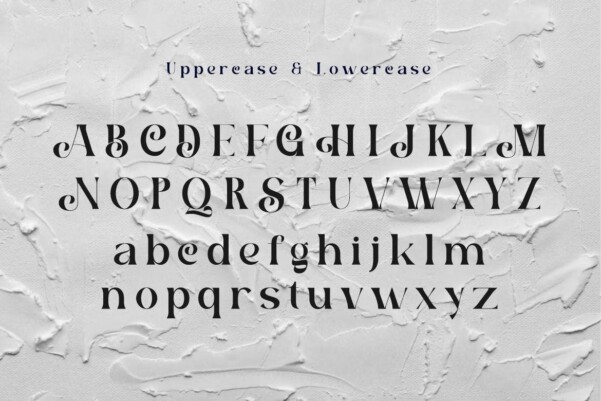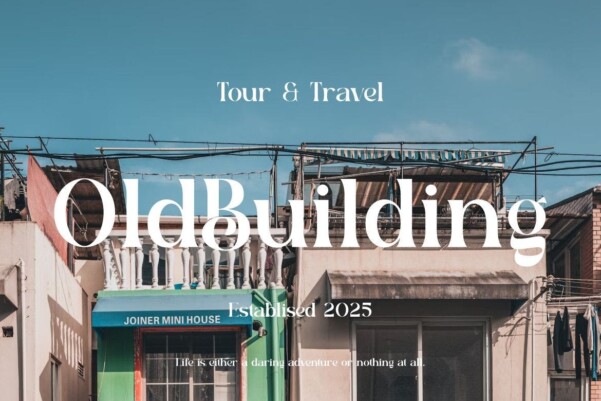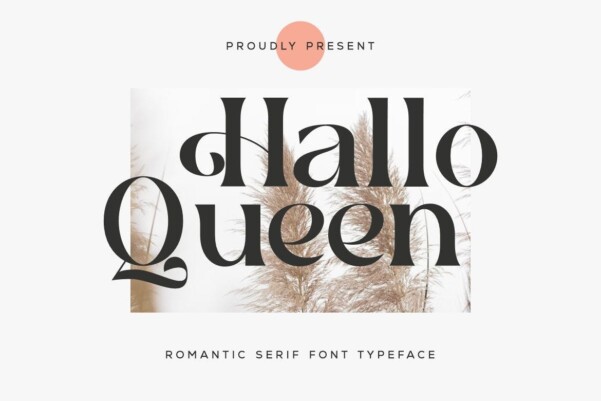
Hallo Queen Font
Hallo Queen Font – This SSerif collection is perfect for personal branding. It was designed with the intention of being used for your personal branding. But it works well for many applications. Everything from personal branding, logos, name tag, handwritten quotes, product packaging, merchandise, social media and greeting cards. Photo signature and advertising could benefit from this collection of these bold signature fonts